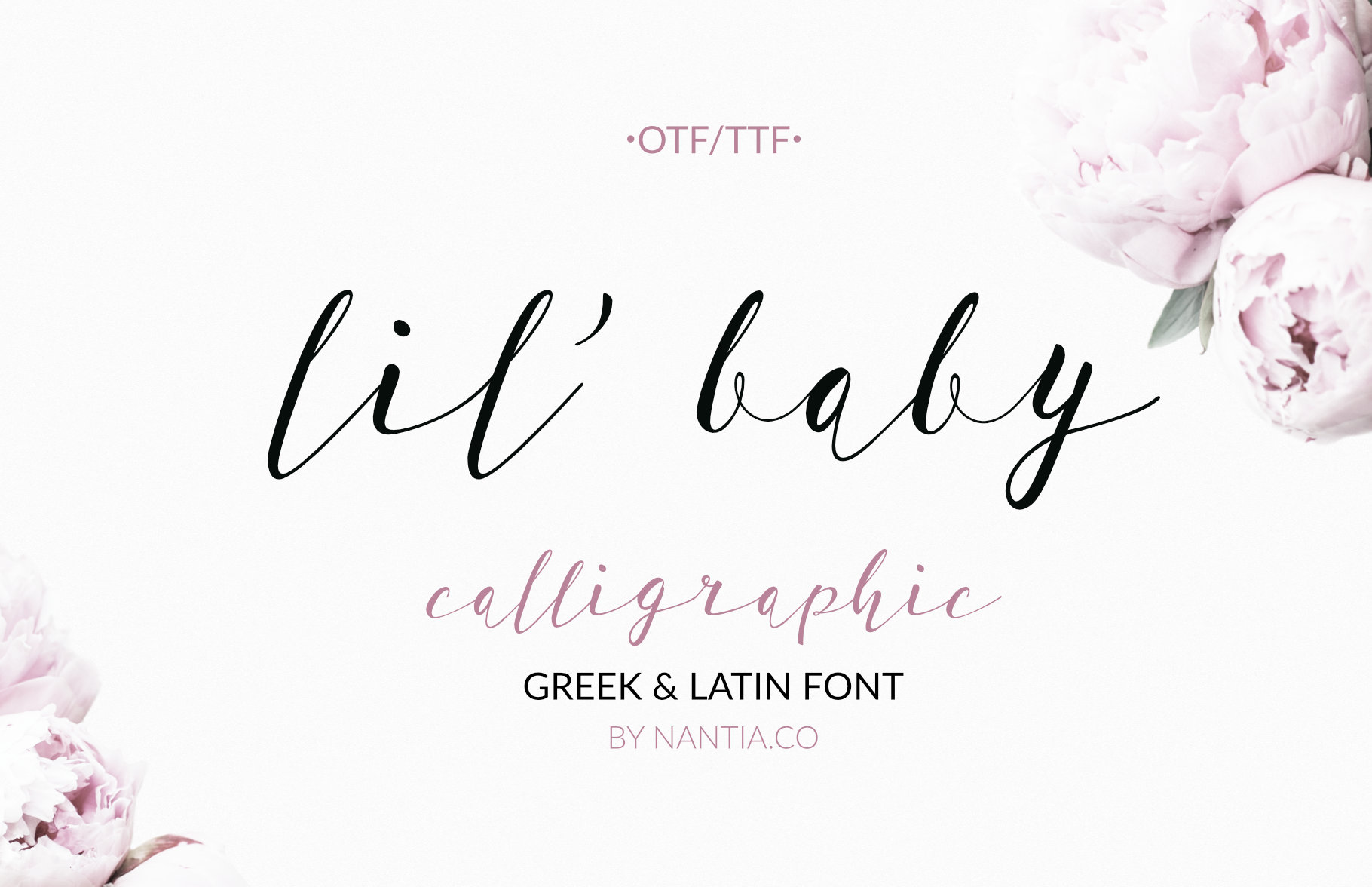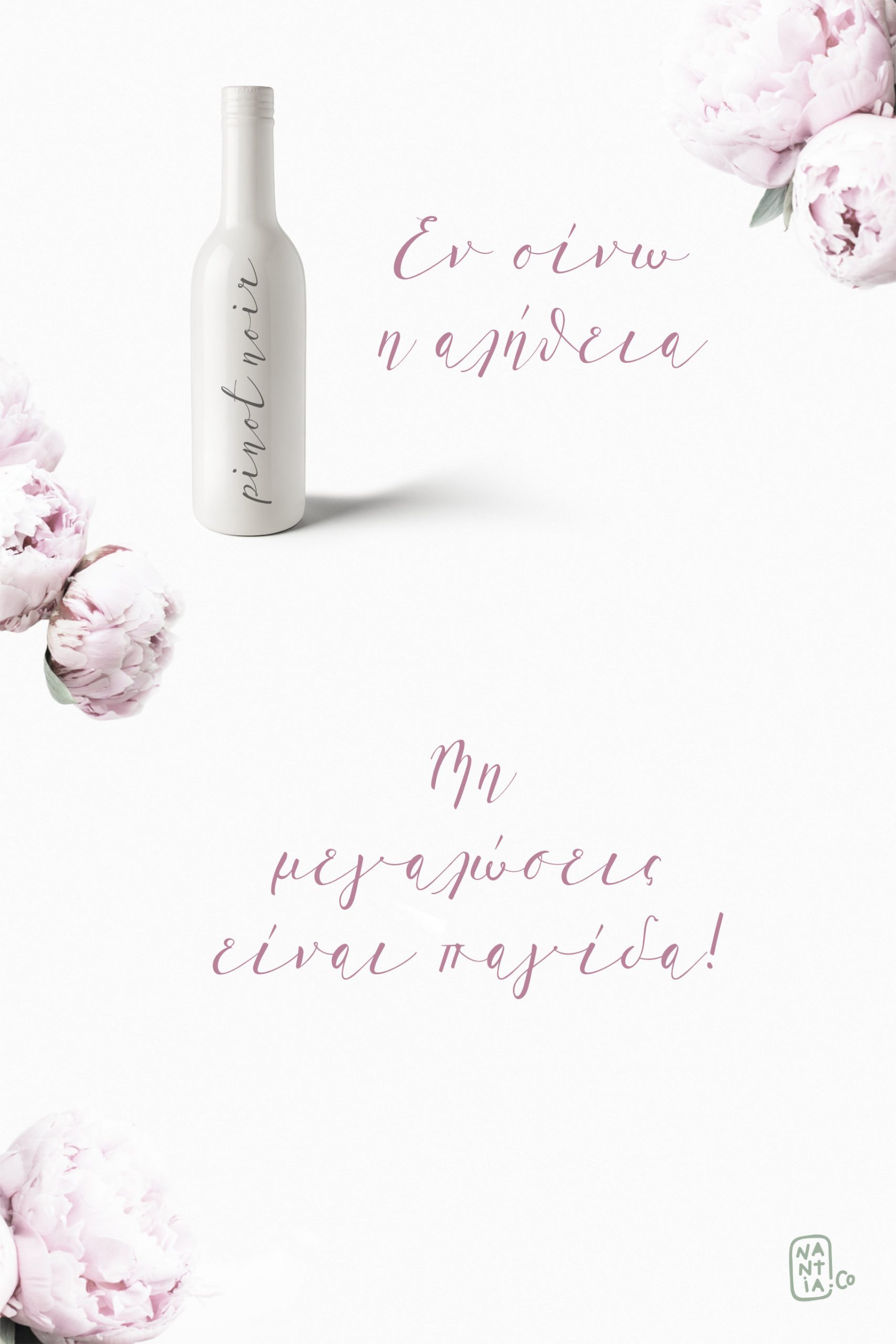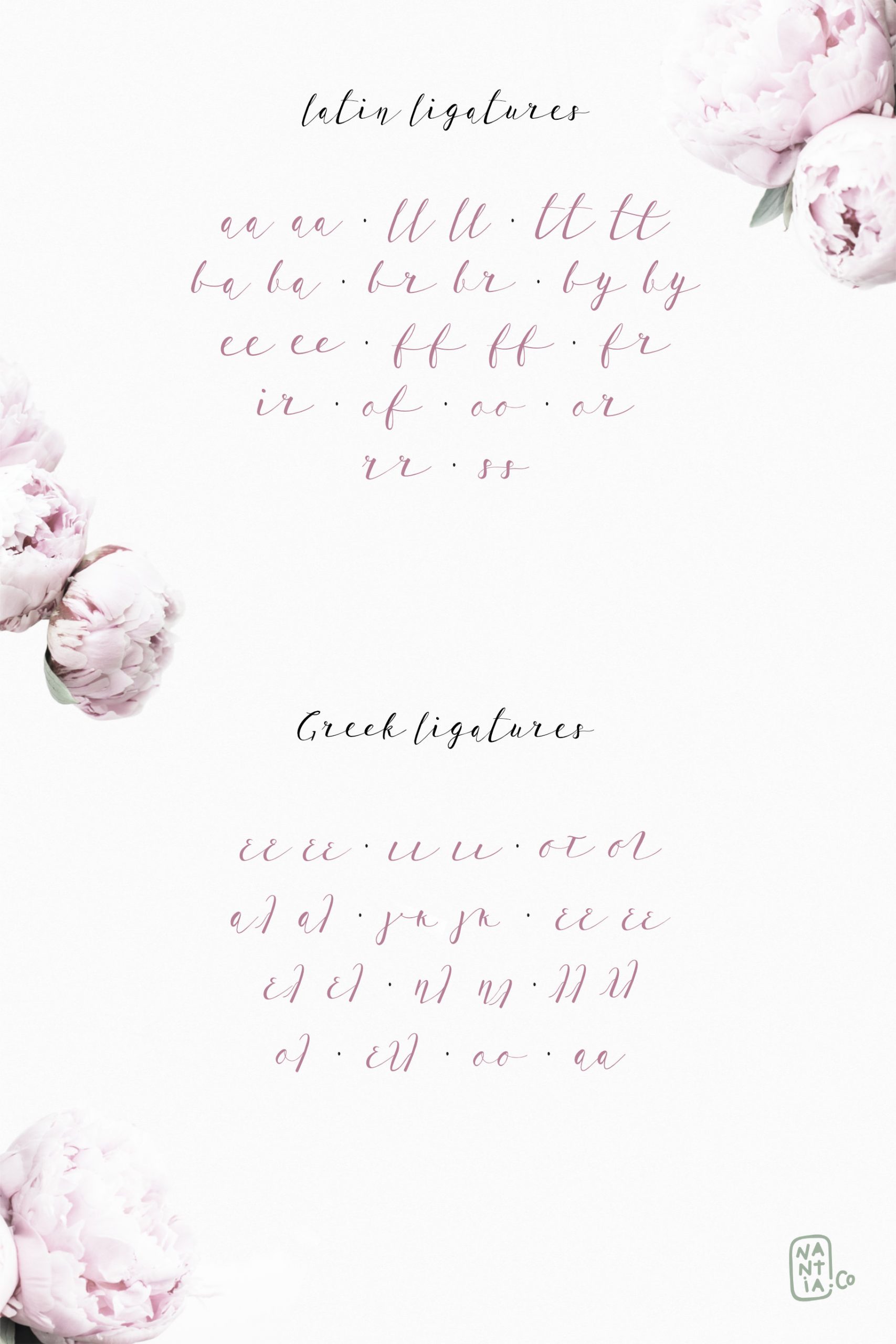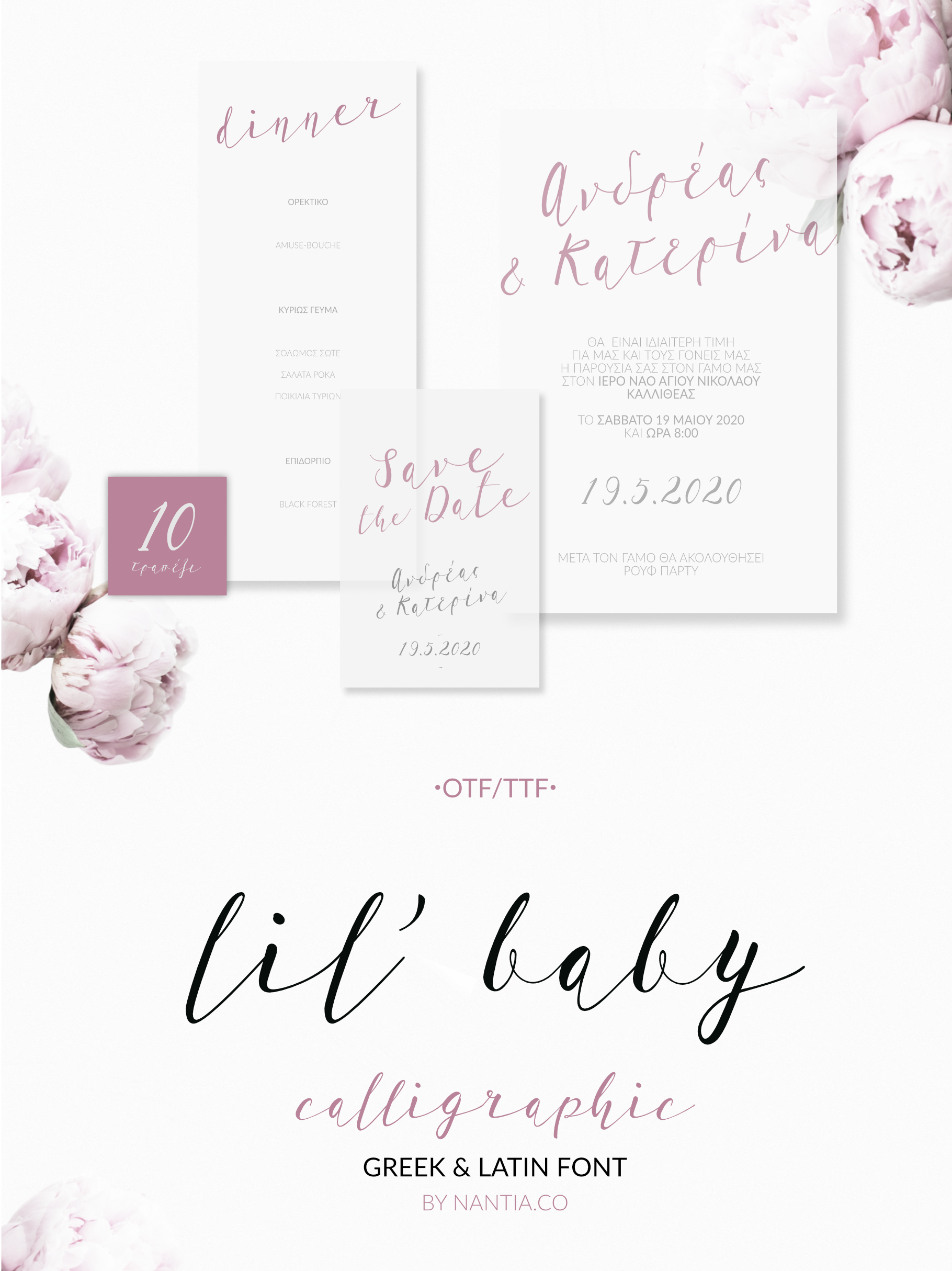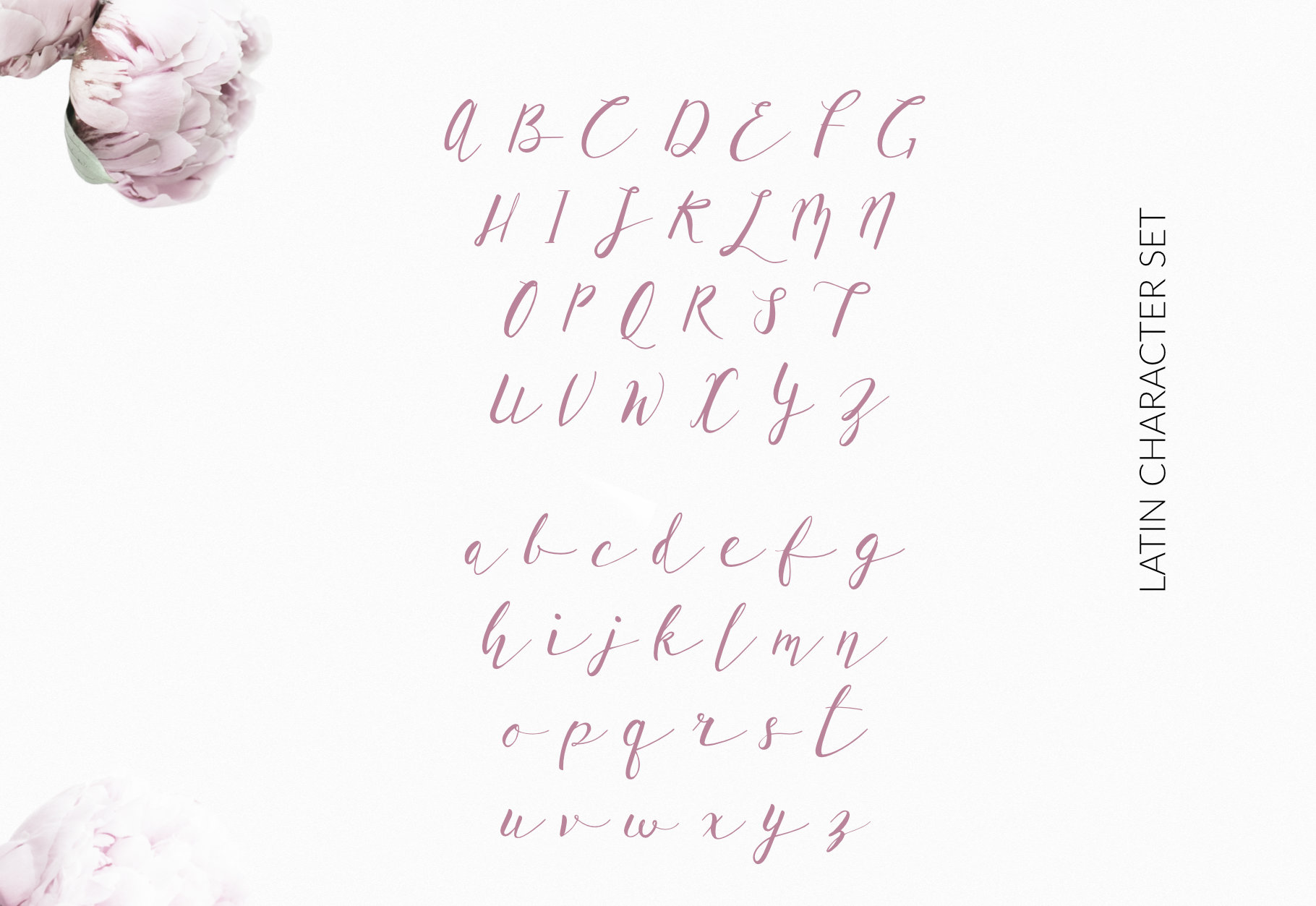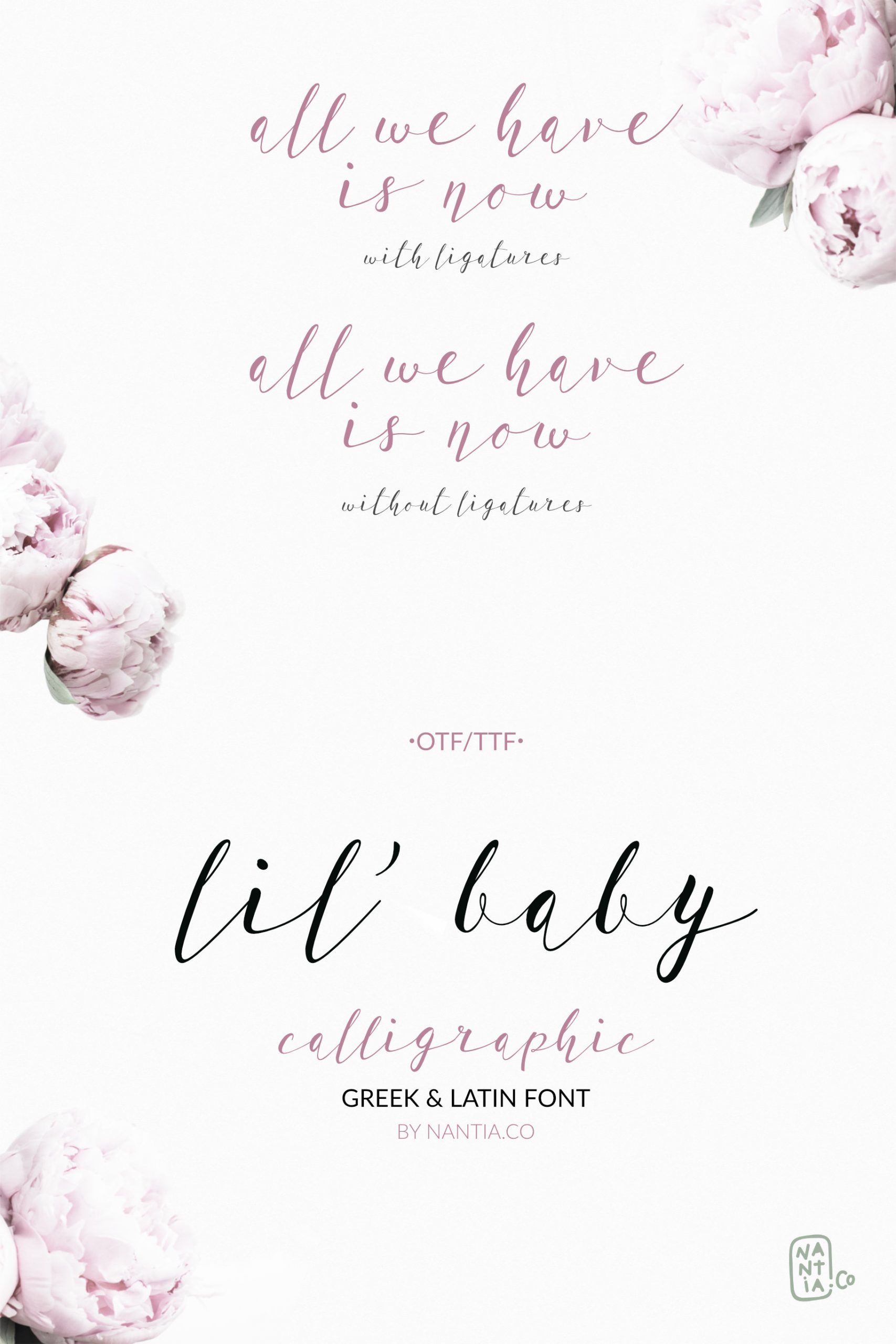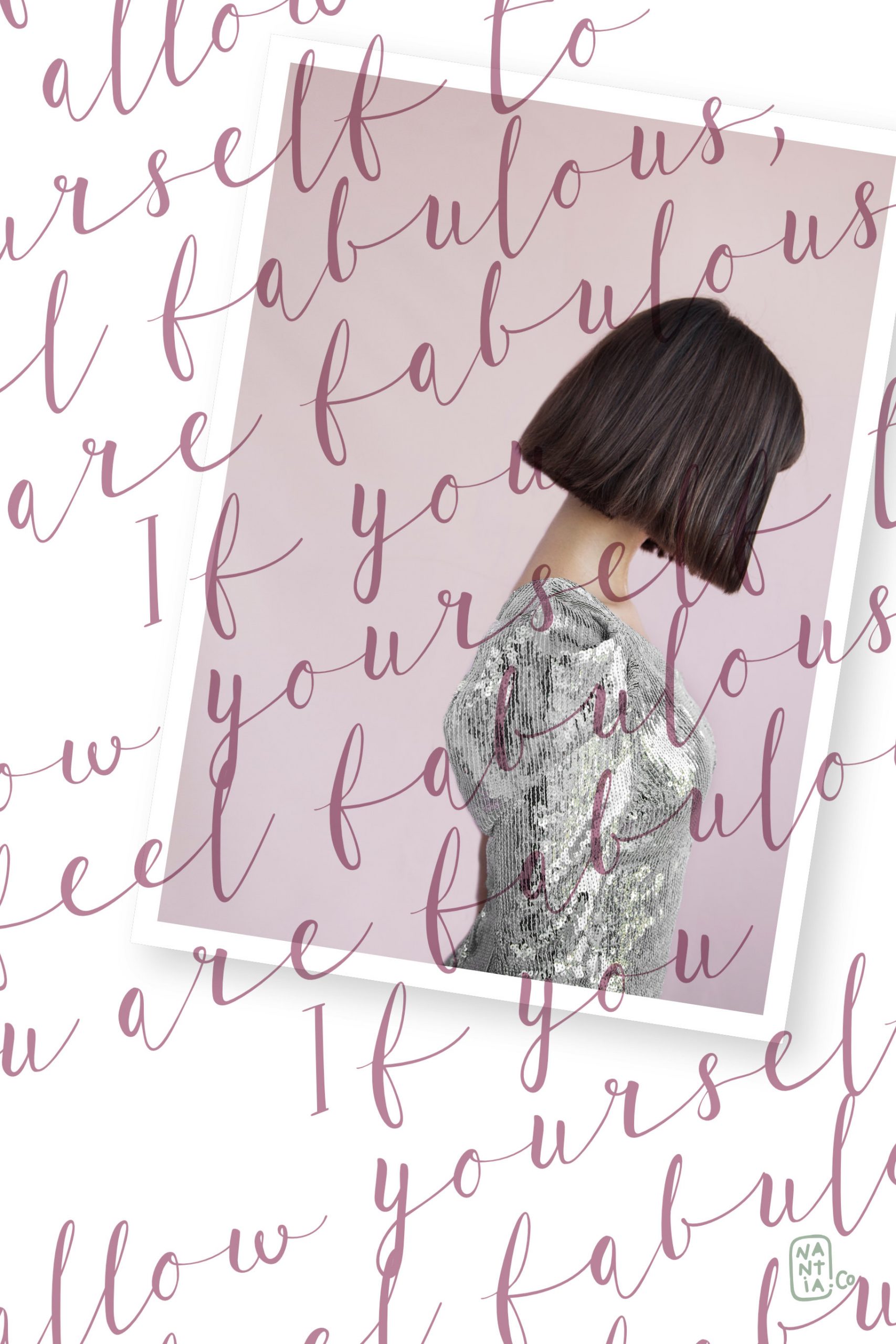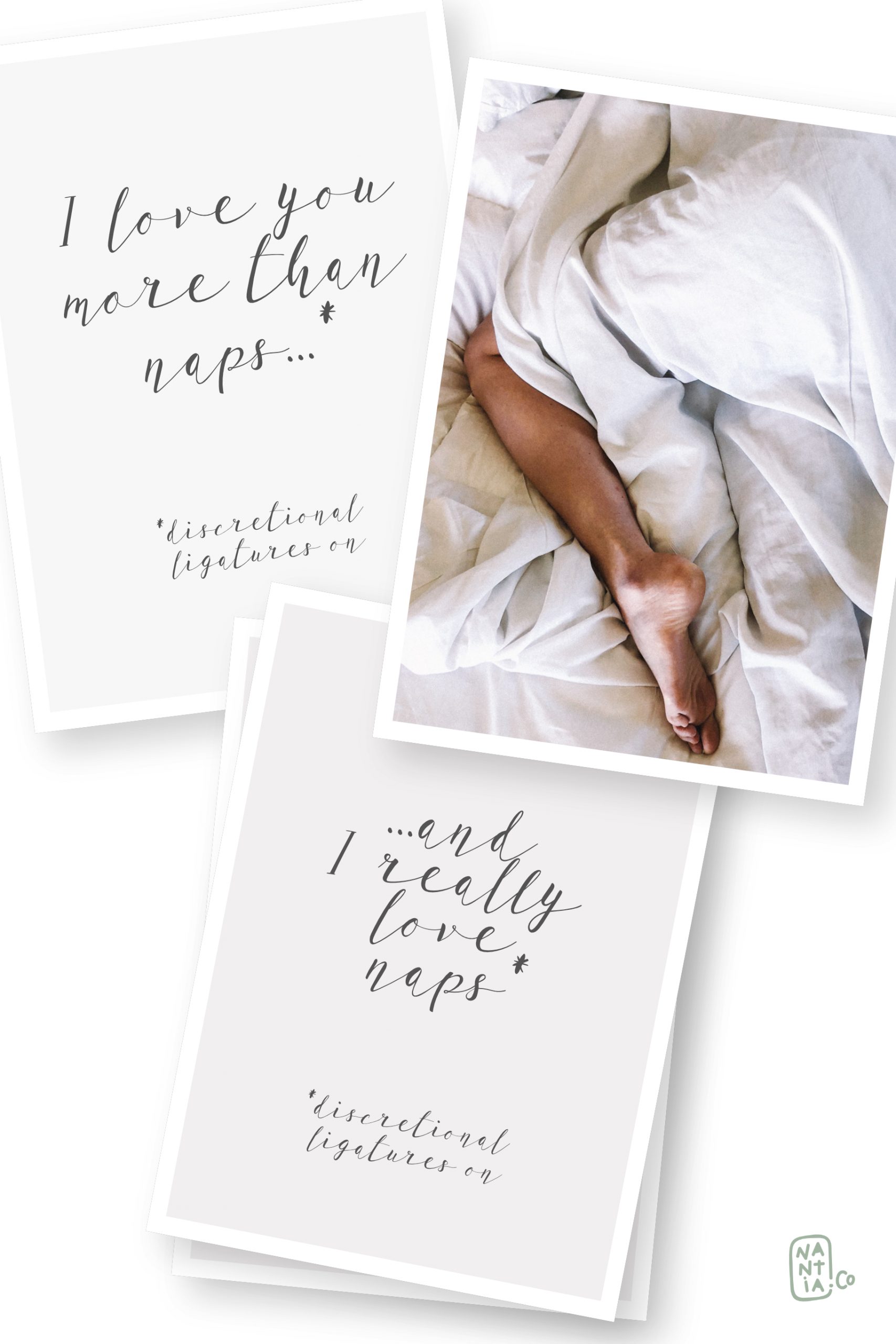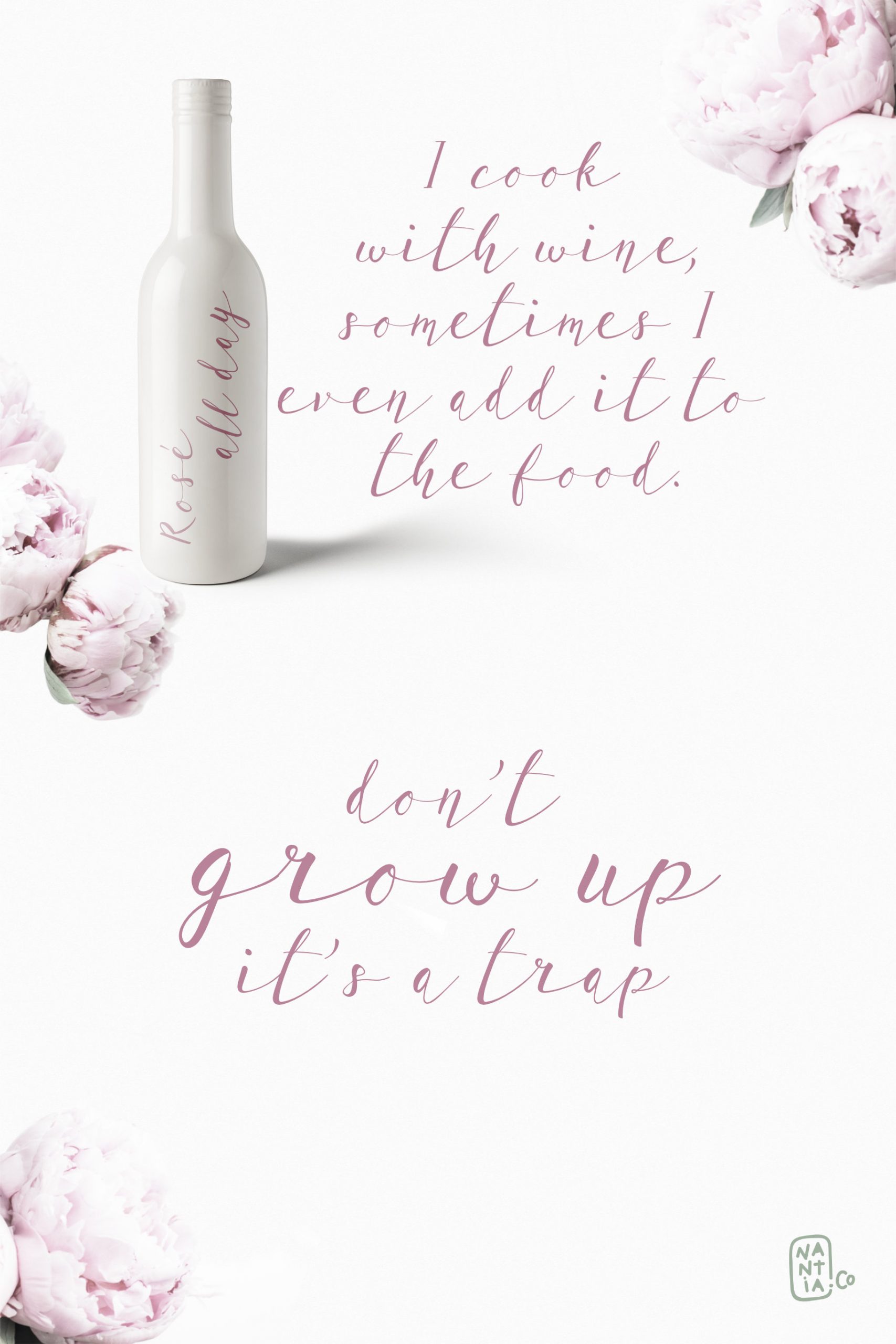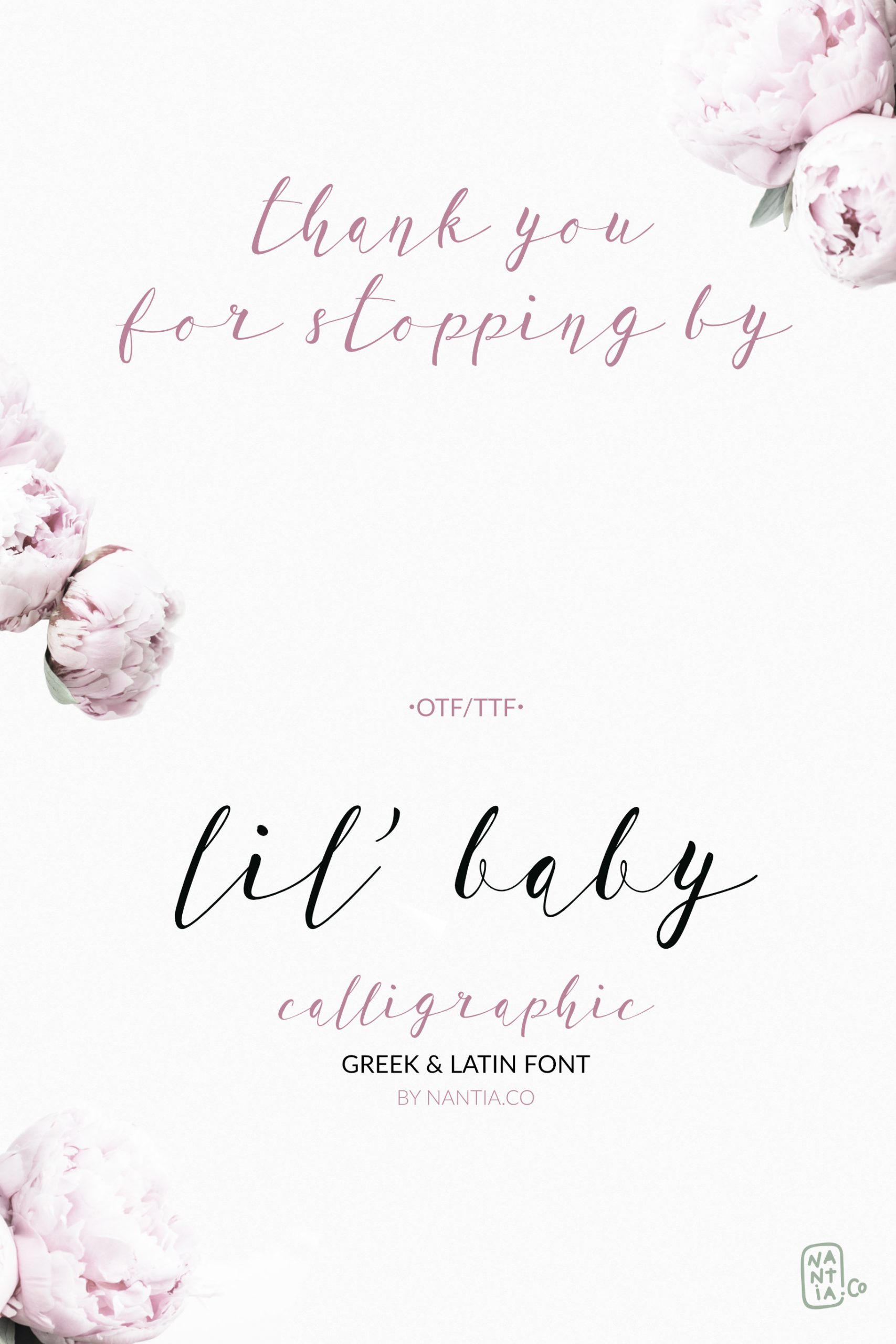
Lil'Baby Script Font
Lil’Baby Script Font, a romantic, modern calligraphy typeface
Lil’Baby Script Font is a romantic, modern calligraphy typeface, which supports Extended Latin and Greek characters. This font does not only contain a complete set of lower and uppercase letters, punctuation, numbers, but also a set of ligatures. Equally important is the fact that the font has diacritics for multilingual support. Of course, with this typeface, you have access to a complete Greek set of characters, with diacritics and Greek ligatures. Lil’Baby Script is a high-quality calligraphy font that can infuse any project with romantic vibes.
Lil’ Baby Script is the perfect wedding font if you want to achieve a dreamy style on your wedding invitation. For a soft, elegant style, you can pair the font with a pastel color palette and creamy papers.
Of course, this modern script font is perfect for your graphic design needs like social media quotes, blog headers, posters, stationery, and why not branding, packaging, and logotypes. In addition, this calligraphy font is ideal for the fashion and apparel industry, if you want to achieve a classic chic, yet modern style. For a nice pair font, try out the Nadira Pro Font!
In conclusion, Lil’Baby Script is a romantic, modern calligraphy typeface, with:
• Extended Latin character set,
• Greek character set,
• punctuation marks,
• ligatures in both Latin & Greek
• diacritics and
• numbers.